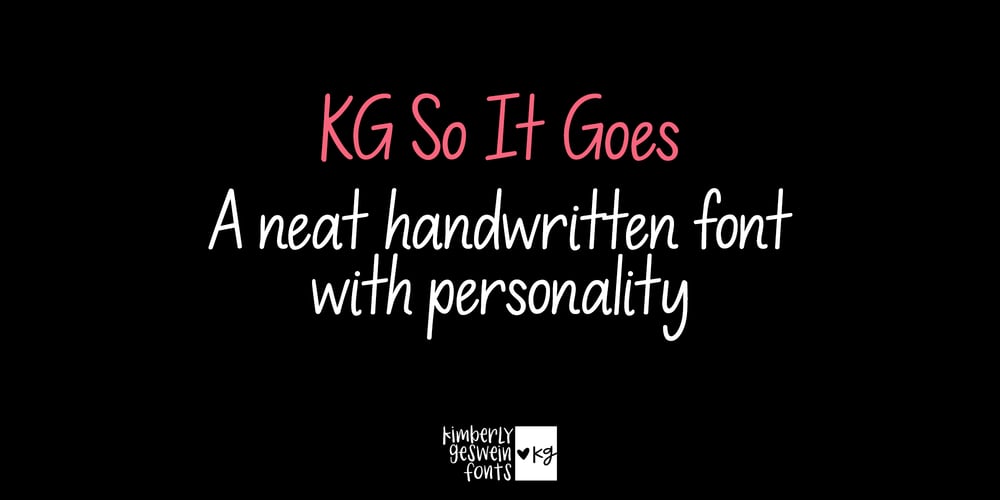
KG So It Goes Font Family was designed by Kimberly Geswein and published by Kimberly Geswein. KG So It Goes contains 1 styles and family package options. A neat, handwritten font with educator-friendly characteristics. This font was based on the handwriting of a teacher friend and is upright with classic letter formation. Perfect for student-facing products, while not juvenile or childish. This font was born out of a time of recovery and growth. I discovered I had a genetic mutation linked to developing several cancers and opted for a preventative mastectomy to face my genetics. After four major surgeries in 14 months, I worked on this while healing and rebuilding my strength. Playing with letter forms was a reminder that despite so much change in my life, some things remain the same. I will always enjoy the soft curves of an s and the playfulness of a good lowercase e. It is my hope that users of my fonts will see the love and joy baked into each letter.